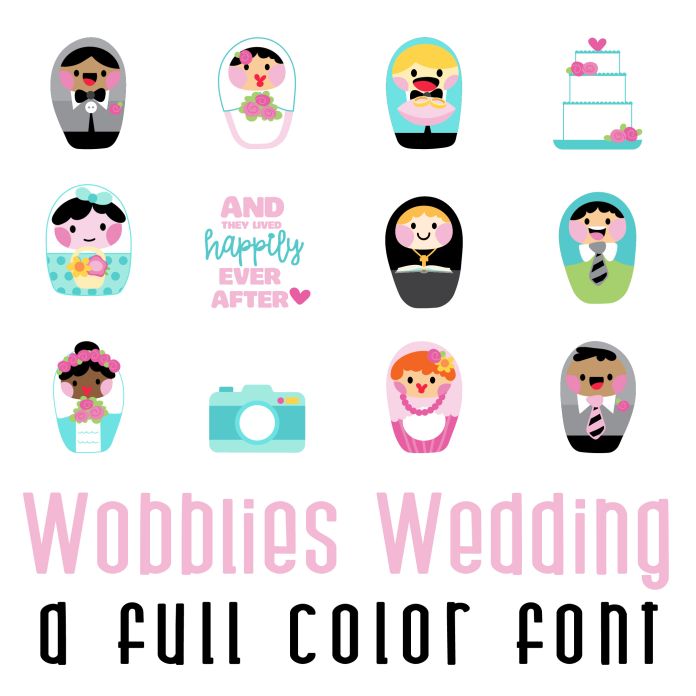
This fun full color font features 26 matryoshka wedding dolls! Perfect for cards, crafts, parties, gifts, decor, planner stickers, classrooms, scrapbook pages, wedding gifts and more!